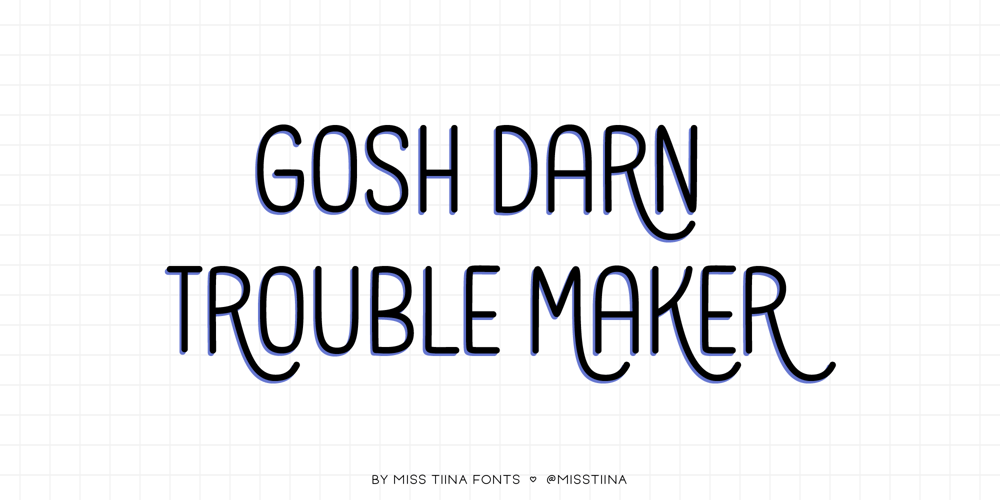
MTF Gosh Darn Trouble Maker
MTF Gosh Darn Trouble Maker font
MTF Gosh Darn Trouble Maker Font Family was designed by Tina Raparanta and published by Miss Tiina Fonts. MTF Gosh Darn Trouble Maker contains 1 styles and family package options. Gosh Darn Trouble Maker is a fresh and fun sans-serif font capable of adding a whimsical touch to your designs. Add it to covers, branding materials, packaging, or anything. You’ll love its fantastic legibility and alternates!